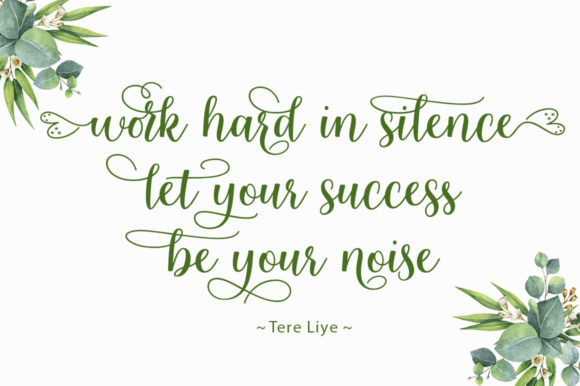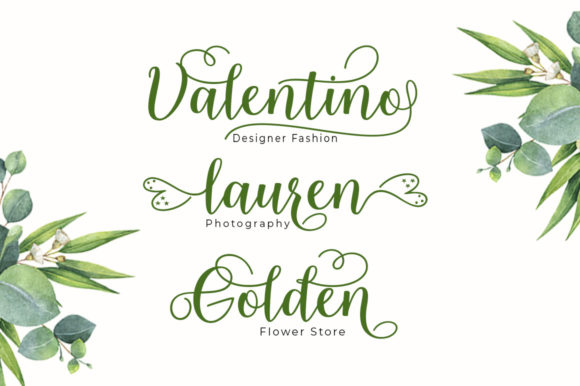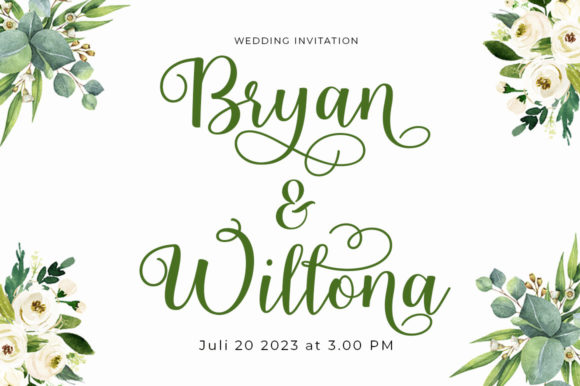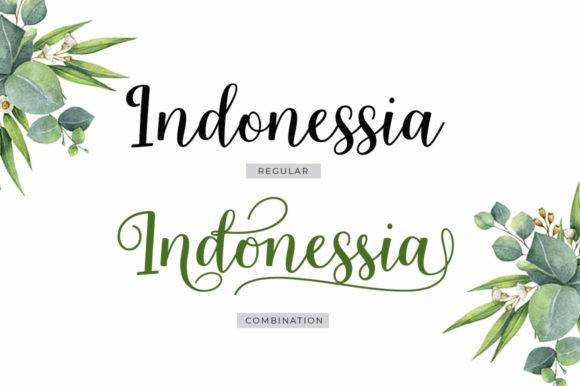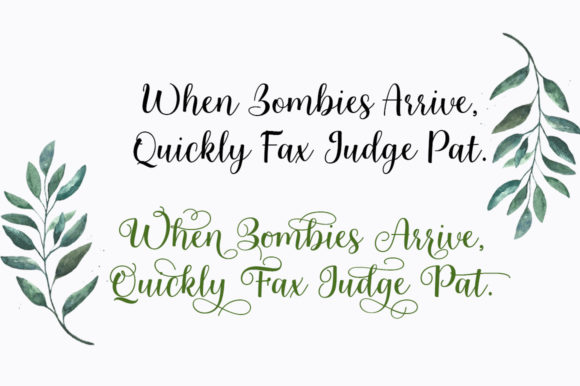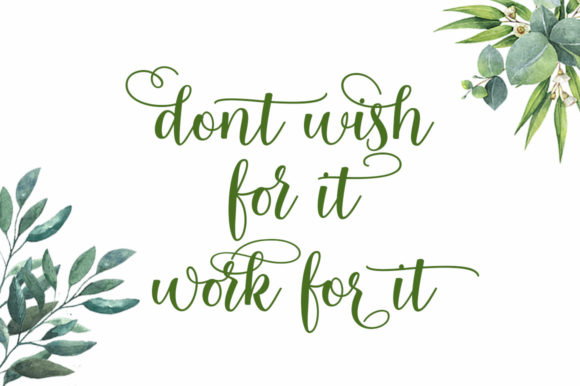
Introduction to Selestyna Font
Have you ever been in the middle of a creative project, pouring your heart and soul into it, only to realize that something is missing – that special touch that elevates your design from good to great? For many designers, finding the perfect font is a crucial part of this process. That’s where the Selestyna Font comes in – a gorgeous script font that adds a touch of elegance and style to any project.
Whether you’re working on a high-quality brochure, a creative website, or a design resource that requires a beautiful, transparent background, the Selestyna Font is an excellent choice. Its PUA encoded design makes it easy to access all of the glyphs and swashes, giving you the freedom to customize and tailor your design to your heart’s content.
Key Features of Selestyna Font
- High-quality font design suitable for creative projects, making it an excellent design resource.
- Unique characteristics: The Selestyna Font boasts an elegant, modern design with intricate details, making it perfect for projects requiring sophistication and style.
- Perfect for use in a variety of creative projects, from branding and advertising to publishing and graphic design.
Honest Review: Selestyna Font
As a designer, I’m always on the lookout for high-quality design resources to enhance my creative projects. The Selestyna Font caught my attention, and I decided to give it a try.
Here’s what I liked about it:
- ✨ The font’s unique design and style, which adds a touch of elegance to any project.
- ✨ The high-quality vector graphics, which ensure crisp and clear rendering even on transparent backgrounds.
- ⚠️ The font may not be suitable for all types of projects, as it has a more decorative style.
- ⚠️ Some users may experience issues with font rendering on certain platforms or devices.
Overall, I was impressed with the Selestyna Font’s design and functionality. It’s a great resource for designers who want to add a touch of sophistication to their creative projects. Just be aware of its limitations and use it accordingly.
Tips for Getting the Most Out of Selestyna Font
To get the most out of the Selestyna Font, use it in combination with other design elements, such as images and graphics, to create a visually appealing design. Experiment with different font sizes and styles to find the perfect combination for your creative project.
Common Use Cases for Selestyna Font
The Selestyna Font is perfect for a variety of creative projects, including logos, business cards, brochures, and social media graphics. It is also great for creating presentations and documents that require a high level of visual appeal.